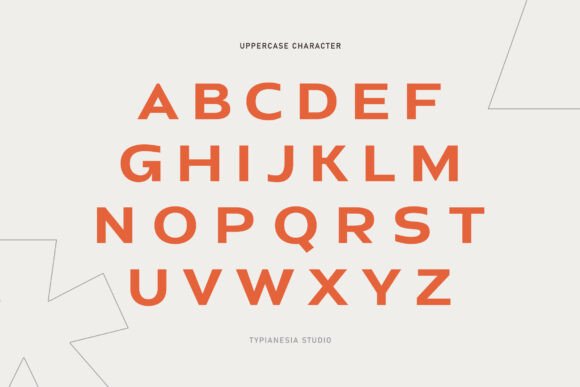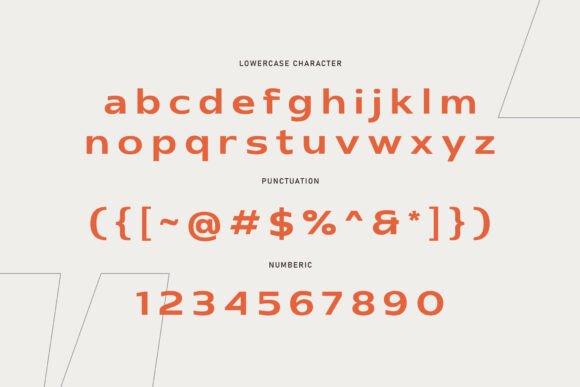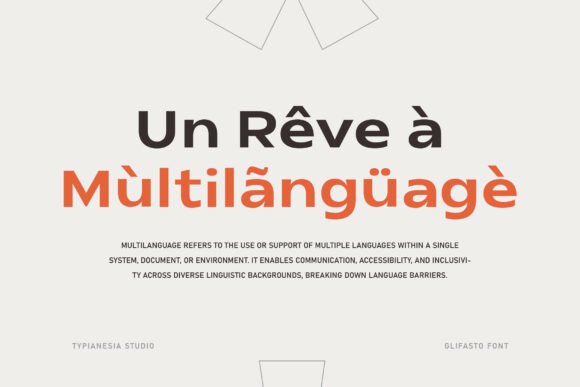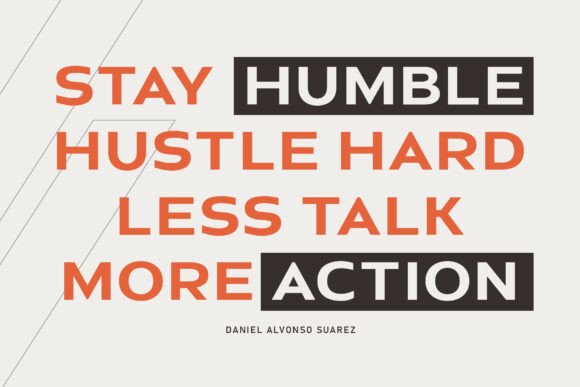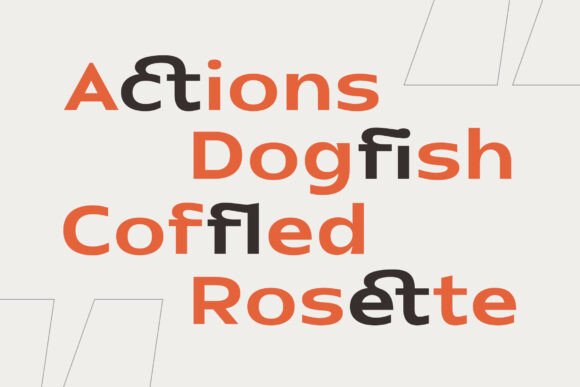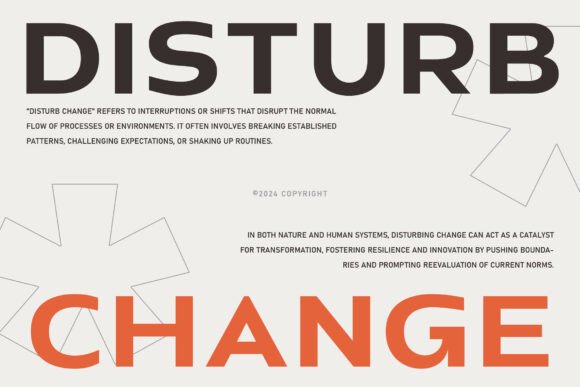
Introducing Glifasto Font: The Ultimate Modern Sans Serif Display Font
In the world of typography, fonts play a crucial role in conveying messages, expressing emotions, and creating visual identities. For designers and crafters, finding the perfect font can be a daunting task, especially when it comes to creating bold and contemporary designs. This is where Glifasto Font comes in – a modern sans-serif display font that is taking the design world by storm.
What is Glifasto Font?
Glifasto is a modern, contemporary sans-serif display font that boasts a bold, expansive presence. Its clean lines, bold structure, and expansive style make it ideal for designers looking to create a modern and sophisticated look. Whether you’re working on branding, logos, headlines, posters, product packaging, website headers, social media graphics, or advertising projects, Glifasto is the perfect choice.
Key Features of Glifasto Font
- Bold and Expanded: Glifasto’s bold and expanded style makes it perfect for creating eye-catching designs that demand attention.
- Clean Lines: The font’s clean lines and minimalist structure give it a modern and sophisticated feel.
- Versatile: Glifasto is versatile and can be used for a wide range of projects, from branding and logos to headlines and posters.
- Contemporary Edge: The font’s contemporary edge makes it perfect for designers looking to create modern and trendy designs.
Why Choose Glifasto Font?
So, why choose Glifasto Font over other fonts? Here are a few reasons:
- Unique and Distinctive: Glifasto’s bold and expanded style makes it stand out from other fonts, giving your designs a unique and distinctive look.
- High-Impact: The font’s bold structure and clean lines make it perfect for creating high-impact designs that grab attention.
- Easy to Read: Despite its bold style, Glifasto is easy to read, making it perfect for use in headlines, titles, and other display text.
- Customizable: Glifasto can be customized to fit your design needs, making it a versatile font for a wide range of projects.
How to Use Glifasto Font?
Using Glifasto Font is easy. Here are a few tips:
- Pair it with Other Fonts: Pair Glifasto with other fonts to create a unique and visually appealing design.
- Use it for Headlines: Use Glifasto for headlines, titles, and other display text to create a bold and eye-catching design.
- Experiment with Colors: Experiment with different colors to find the perfect combination that works for your design.
In conclusion, Glifasto Font is a modern sans-serif display font that is perfect for designers and crafters looking to create bold and contemporary designs. Its clean lines, bold structure, and expansive style make it ideal for a wide range of projects, from branding and logos to headlines and posters. With its unique and distinctive style, high-impact design, and ease of use, Glifasto is a must-have font for any designer or crafter looking to take their designs to the next level.